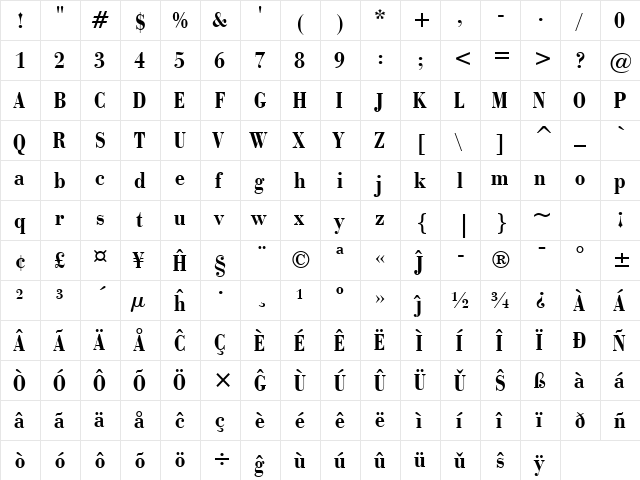
BauerBodni BdCn BT Eo Bold
Design Context for BauerBodni BdCn BT Eo Typeface
BauerBodni BdCn BT Eo is a composed and adaptable typeface that performs quietly and consistently across a wide range of design contexts. The heavy weight commands attention and anchors typographic hierarchies.
Pro Tip: Use BauerBodni BdCn BT Eo in both headline and body roles to test its range before committing to a single application.